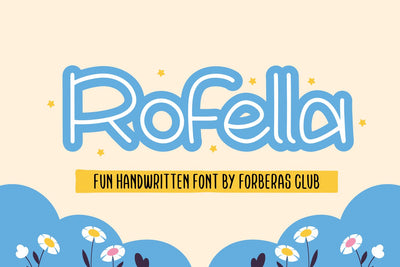
Rofella
Introducing Rofella Font by Forberas Club
Rofella is a Modern Handwritten Font. Rofella perfect for book cover, product packaging, branding project, megazine, social media, skate zine, band font, or just used to express words above the background. This font includes TTF and OTF, This font also multilingual support.